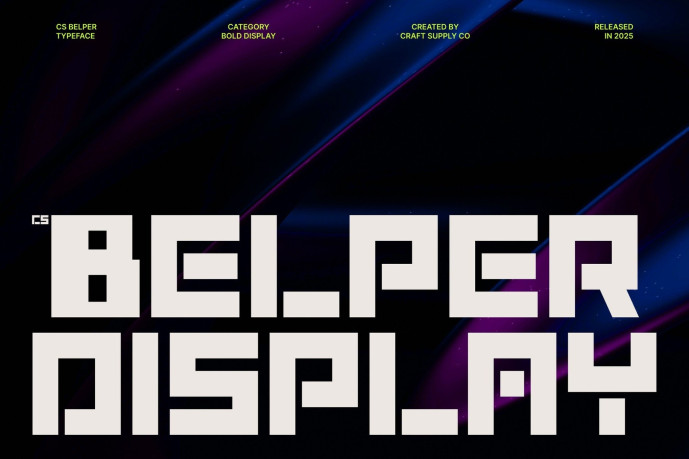
Belper – Futuristic Font
Belper – Futuristic Font, with Modern Energy Futuristic Display Font with Techno Influence This is a bold futuristic display font designed to radiate modern energy and visual intensity. Built with a strong techno foundation, this font embraces sharp forms, assertive structures, and experimental details that immediately set it apart. Its design reflects a forward-thinking mindset, combining industrial toughness with a contemporary digital edge.
Bold Forms with Industrial and Brutalist Character The bold letterforms of this font are inspired by industrial systems and brutalist design principles. Solid strokes, rigid geometry, and unapologetically strong shapes create a raw and commanding presence. This brutalist influence gives the font a sense of honesty and power, making it feel mechanical, urban, and uncompromising.
Experimental Design for Modern Expression This font pushes beyond conventional typography with its experimental approach. Its futuristic construction explores unconventional proportions and dynamic shapes, resulting in a font that feels innovative and progressive. This experimental nature makes it ideal for designers who want to break visual norms and create bold typographic statements.
Ideal for Branding, Logos, and Posters Designed for high-impact applications, this font is perfect for branding, logos, poster designs, and promotional visuals that demand a strong identity. Its modern energy and techno-industrial aesthetic make it an excellent choice for technology brands, creative studios, music events, fashion campaigns, and experimental projects.